Blancoletters
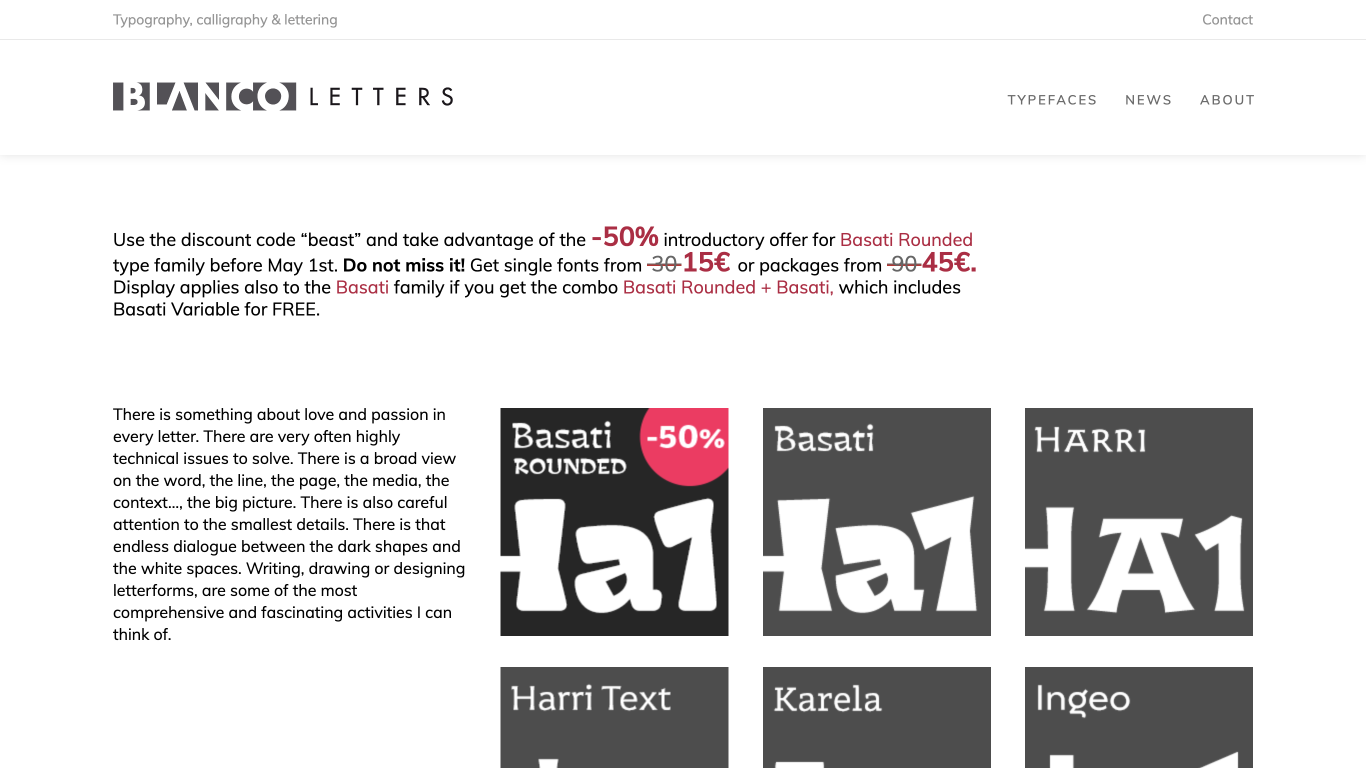
Spain
2014
Blancoletters is a Basque Country-based independent type foundry specializing in quality-type projects, both custom and retail. Blancoletters is the commercial name of Juan Luis Blanco, a graphic designer, type designer, and calligrapher based in Zumaia (Basque Country). He has specialized in multi-script font families comprising Latin, Greek, Cyrillic, Arabic, and Tifinagh scripts. Notable works include 'Harri', a contemporary take on traditional Basque lettering, and 'Amaikha', a multi-script font family developed during his MA in Typeface Design at the University of Reading.